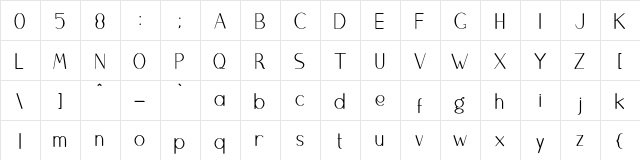
Brightydfn Regular
Design Context for Brightydfn Typeface
Brightydfn takes a measured approach to typography — its balanced proportions and neutral character make it a reliable workhorse for both digital and print work.